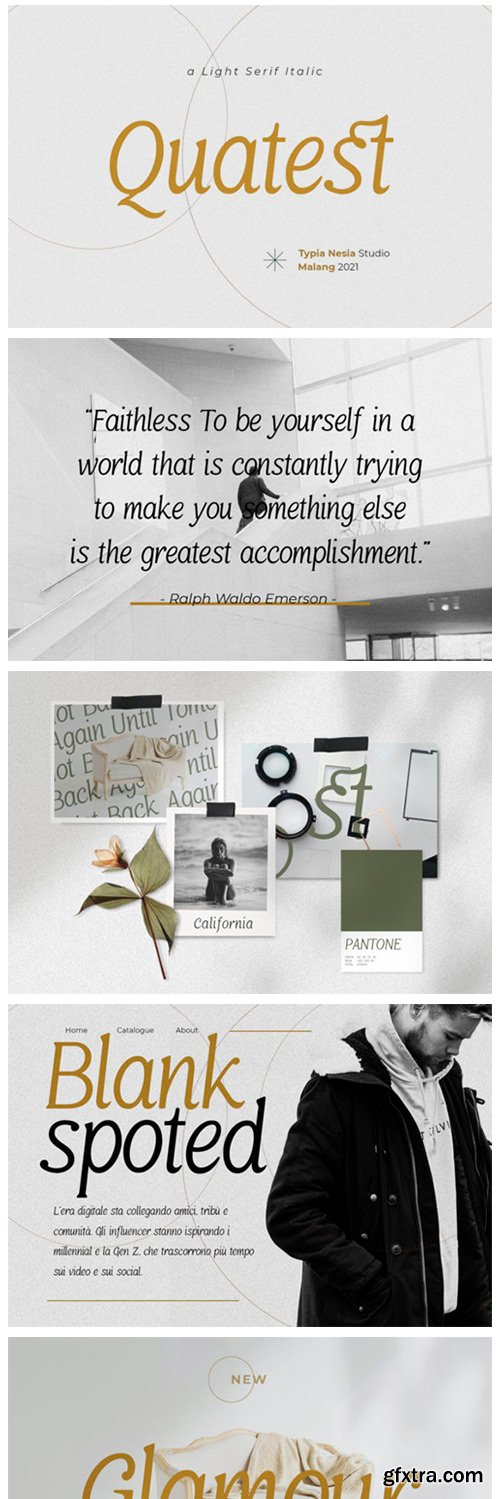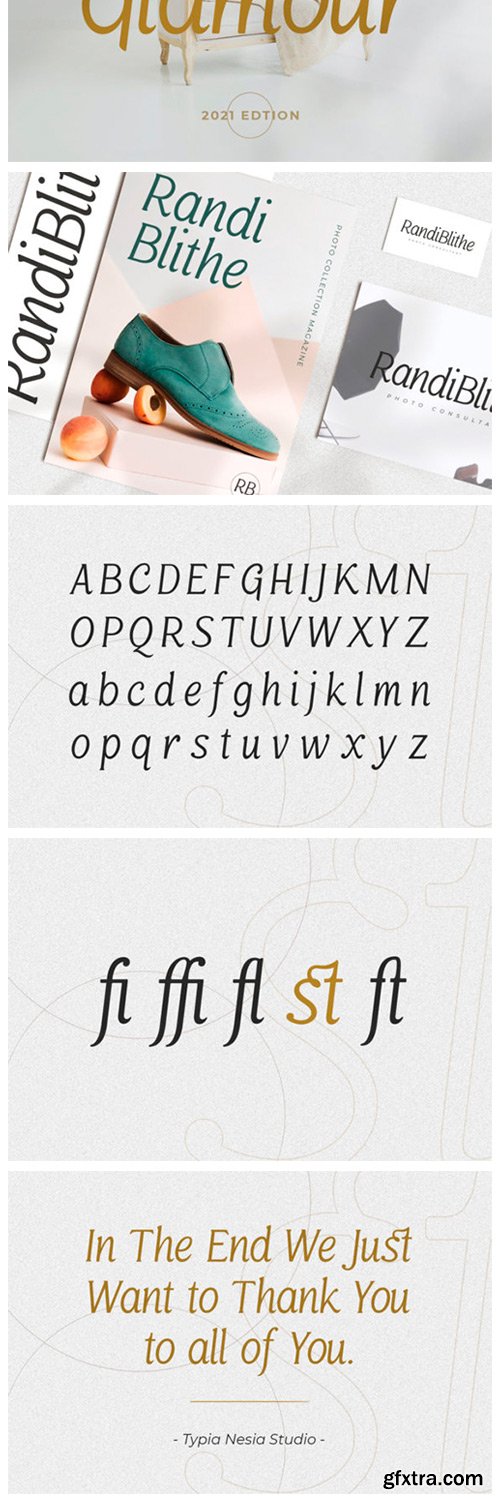
quetest 字体
Quatest Font
Quatest is a minimal and neat serif font. It can easily be matched to an incredibly large set of projects, so add it to your creative ideas and notice how it makes them stand out!